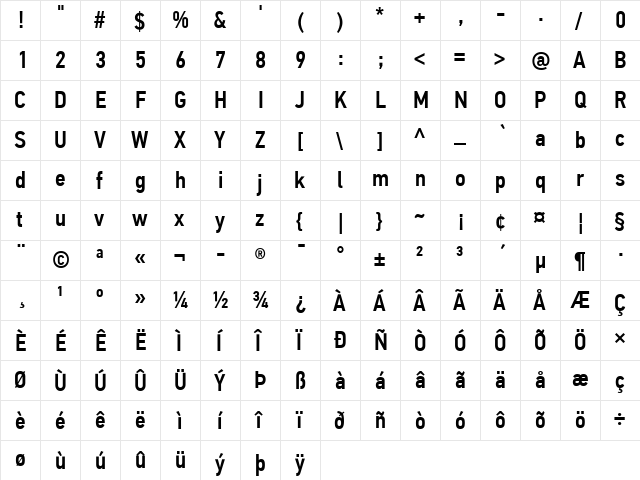
PF Din Text Cond Pro Medium
| Foundry | Parachute蠗orldwide |
| Designer | Panos Vassiliou |
Design Context for PF Din Text Cond Pro Typeface
PF Din Text Cond Pro offers clean, dependable letterforms without strong stylistic allegiance, making it a practical choice for designers who need flexibility. The condensed width makes it efficient for tight spaces without sacrificing legibility.